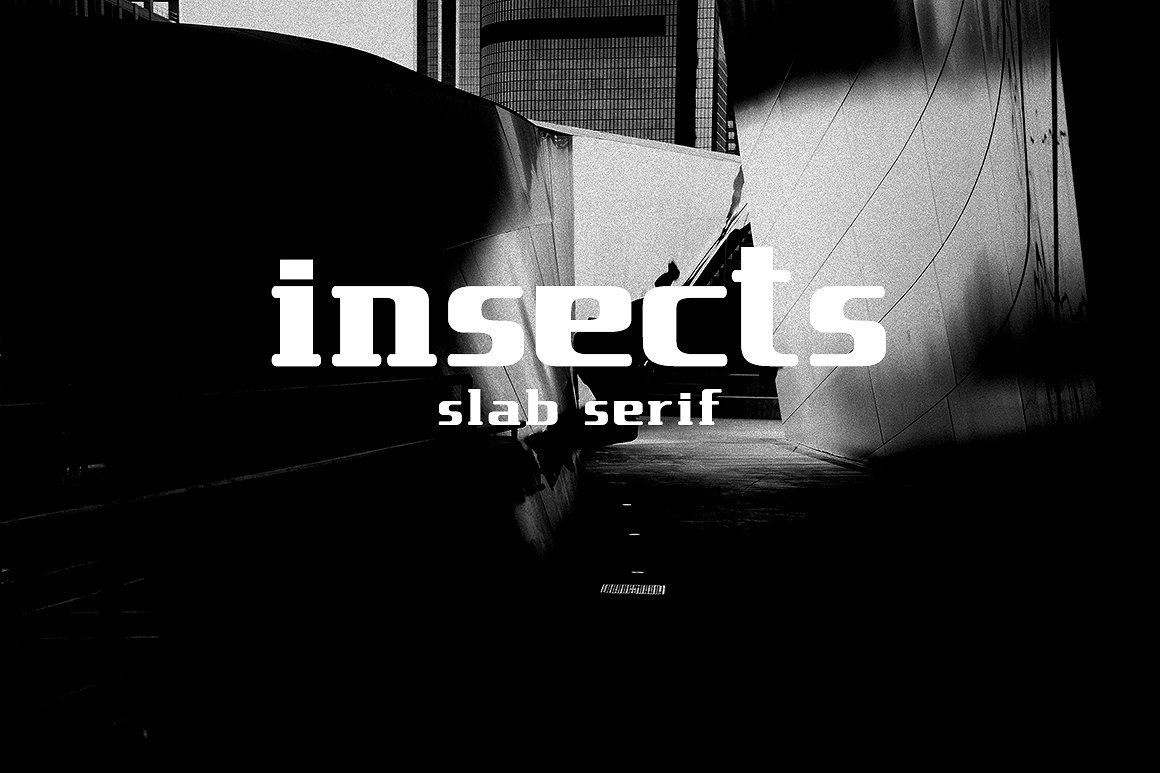
insect slab serif
Hello there.. New Present insects Slab Serif font serif fonts are simple and elegant look, you can use the projects you have. can be used depending on the desire that use, as needed. insects Slab Serif font is a smooth hand Slab Serif, modern style Slab Serif, which was created to meet the needs of your next design project. insects Slab Serif font, Can used for various purposes. such as the title, logo, correspondence, letterhead, signage, labels, newsletters, posters, badges, t-shirt, etc.